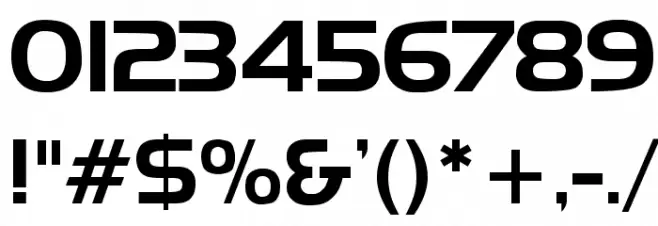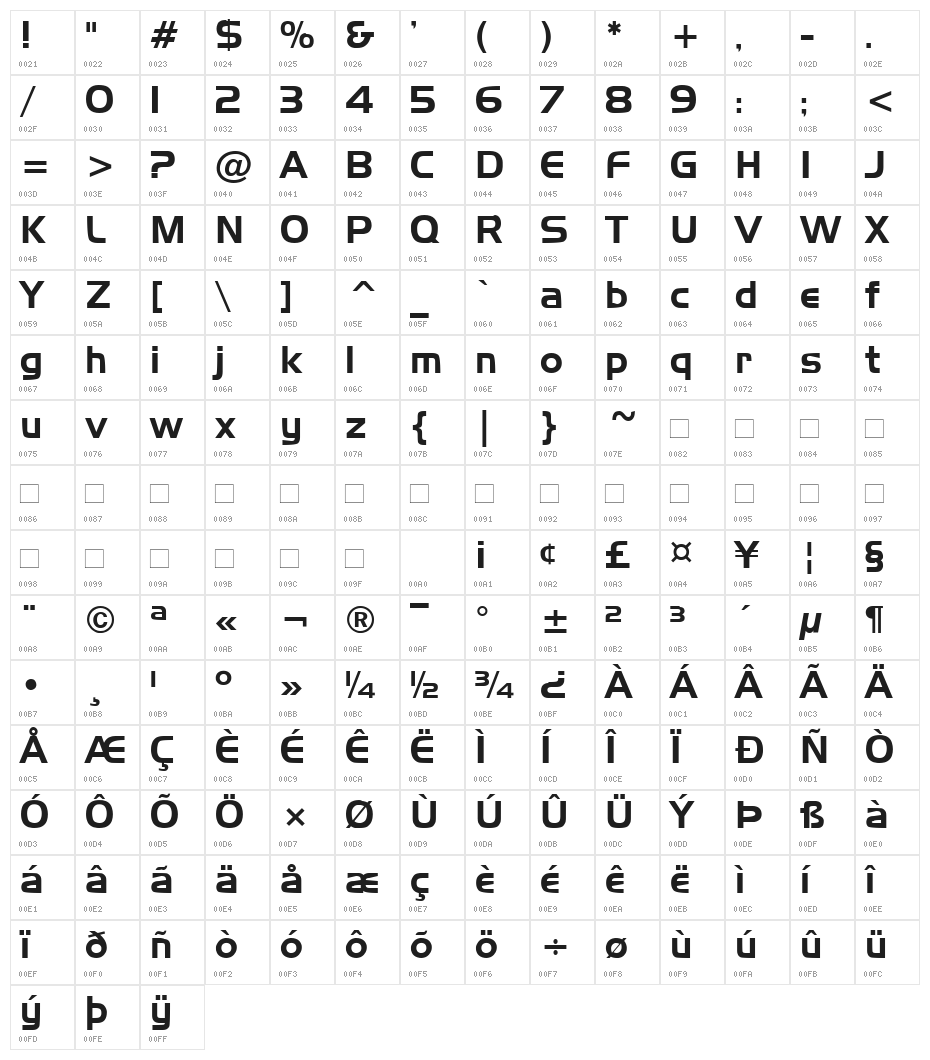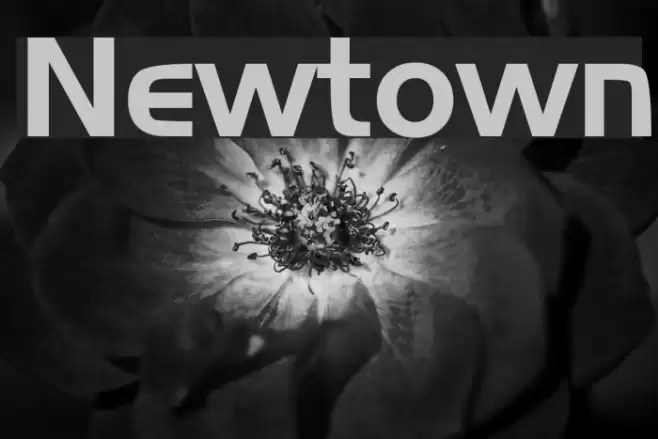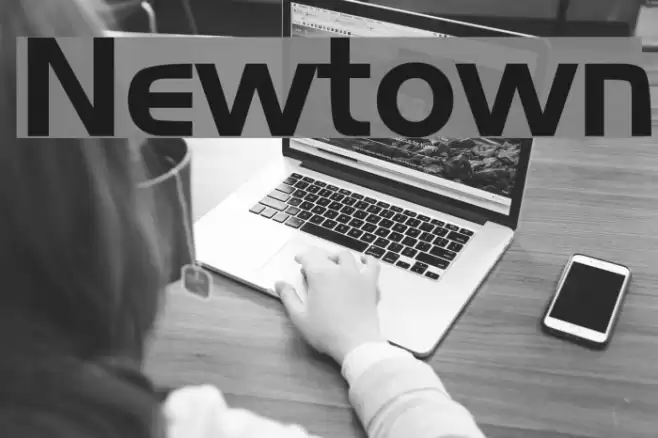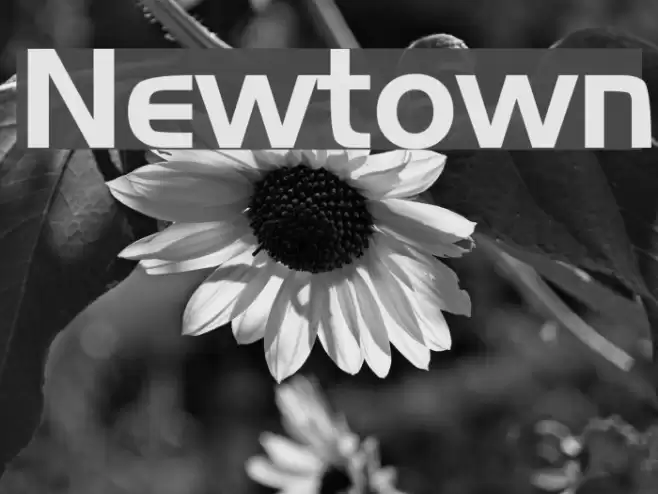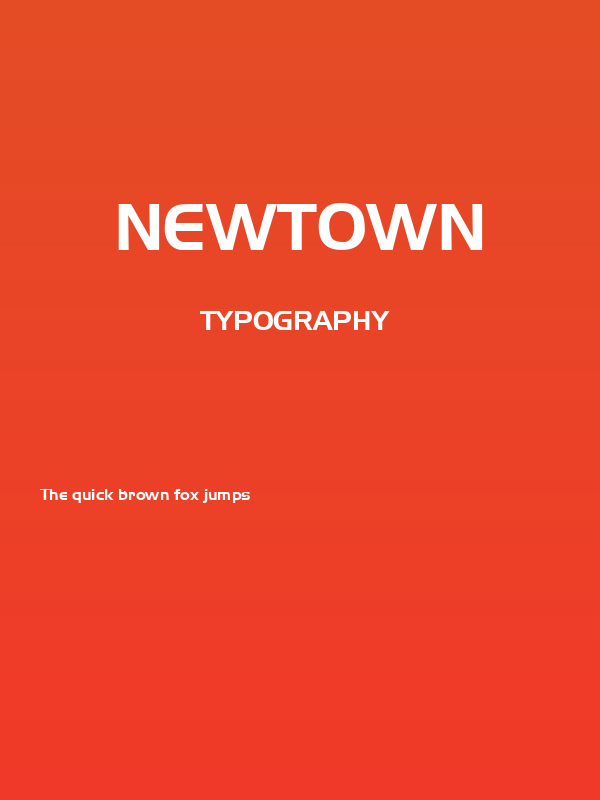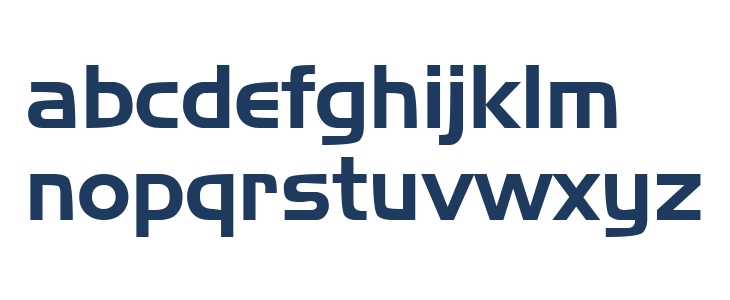
Newtown Font
Newtown Description
This font features a modern and sleek design with a geometric sans-serif style. The characters are bold and have a slightly condensed appearance, giving them a strong presence. The uppercase letters are uniform in height, while the lowercase letters maintain a consistent baseline, enhancing readability. The numerals are clear and distinct, making them suitable for various applications. The special characters are well-defined, adding versatility to the font's use. Overall, the font's clean lines and balanced proportions make it ideal for contemporary design projects.
| Use Case | Headlines, Logos, Digital Interfaces |
| Proposed Projects | Ideal for branding, advertising, digital interfaces, and editorial design. |